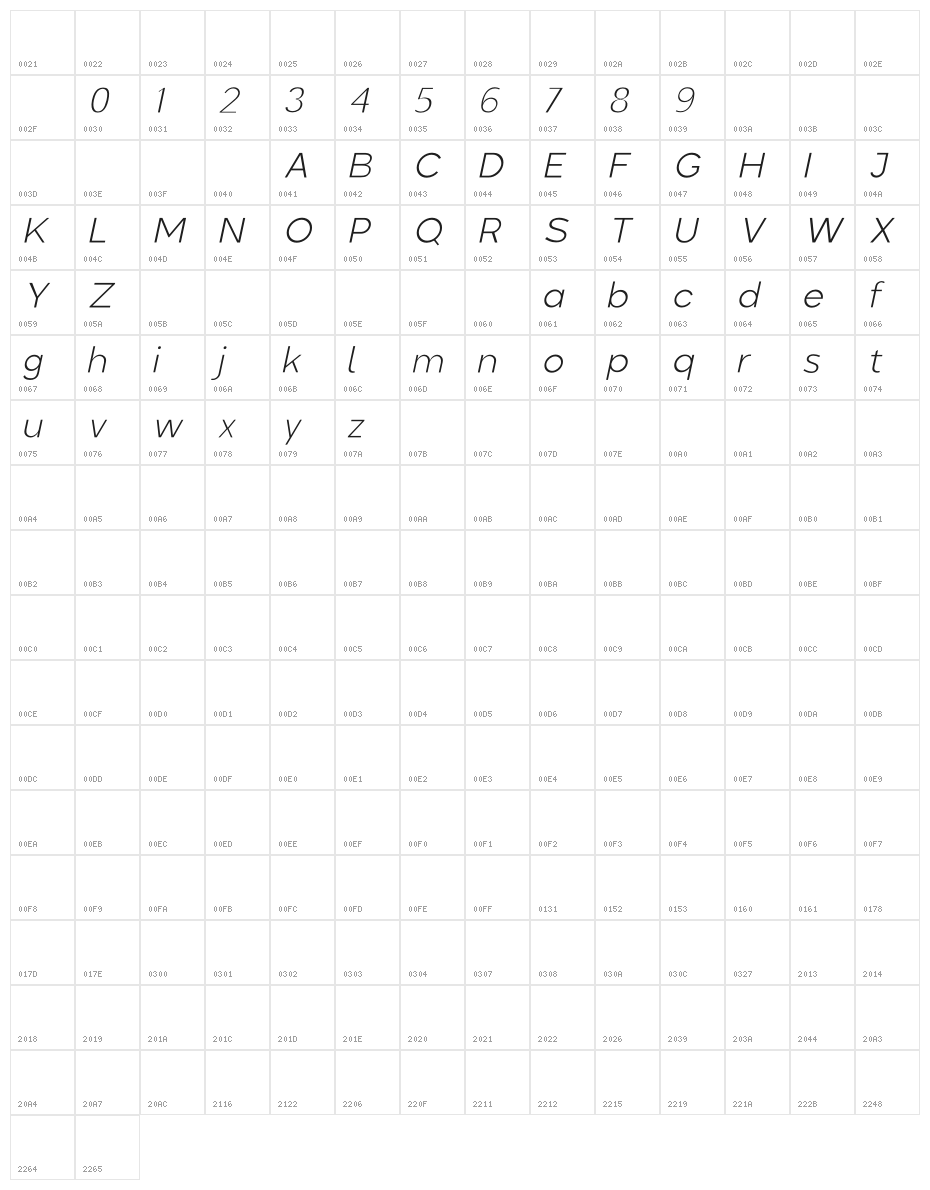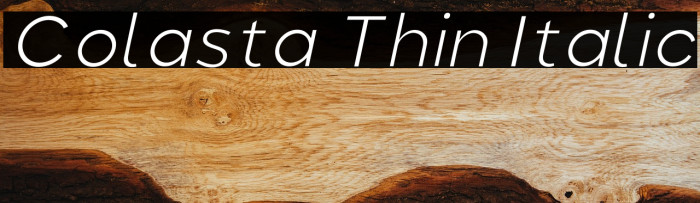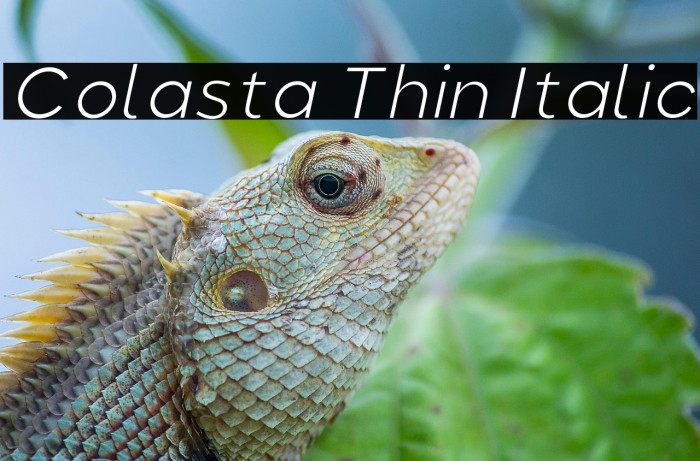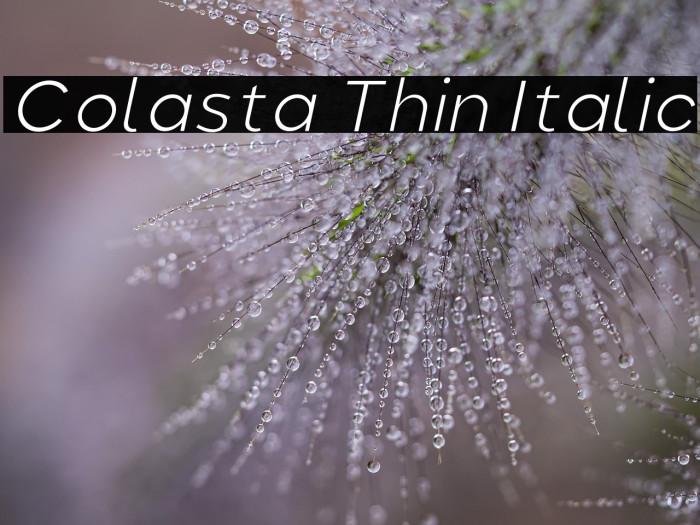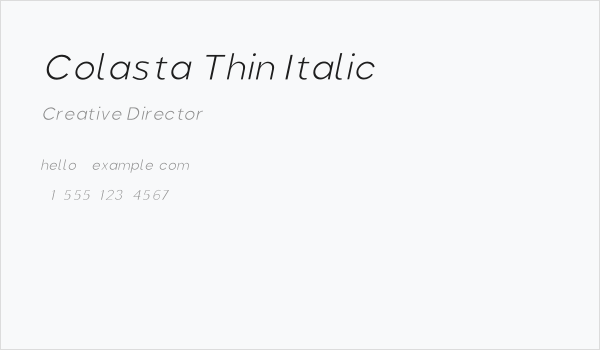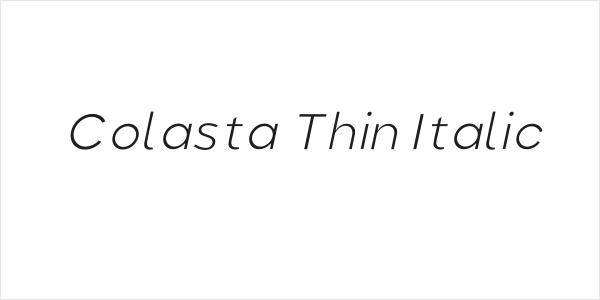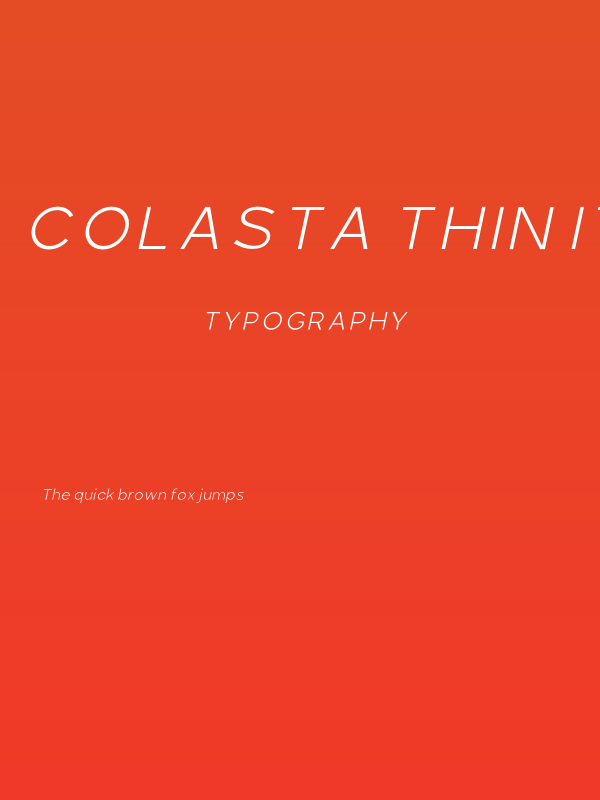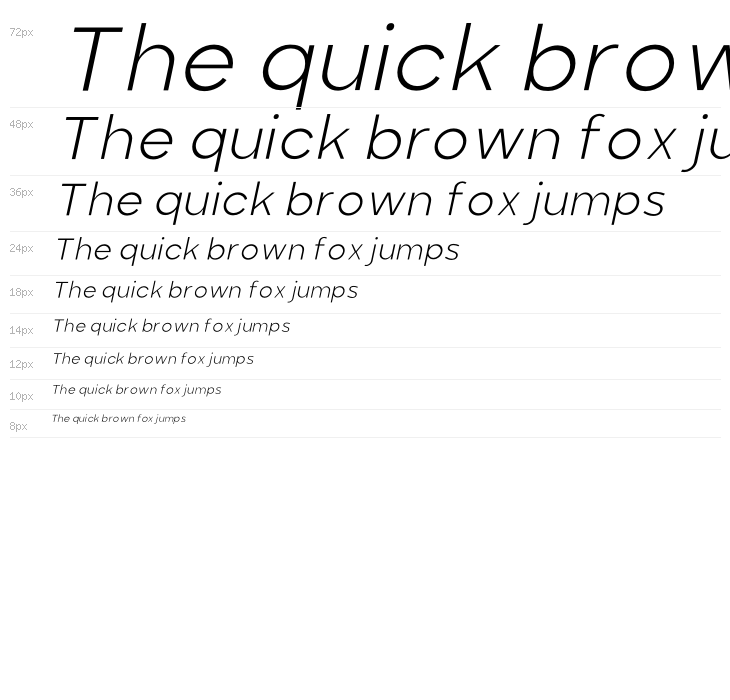
Colasta Thin Italic Font
Colasta Thin Italic Description
This font showcases a sleek and modern design with a thin, italicized style. The characters are elegantly slanted, providing a sense of motion and sophistication. The uppercase and lowercase letters maintain a consistent thinness, contributing to a uniform appearance. The numerals are clear and legible, matching the overall aesthetic. The font's minimalistic approach makes it versatile for various design applications, offering a contemporary feel that is both stylish and functional.
| Use Case | Headlines, Logos, Editorial design |
| Proposed Projects | Ideal for fashion magazines, modern branding, elegant invitations, and minimalist web design. |